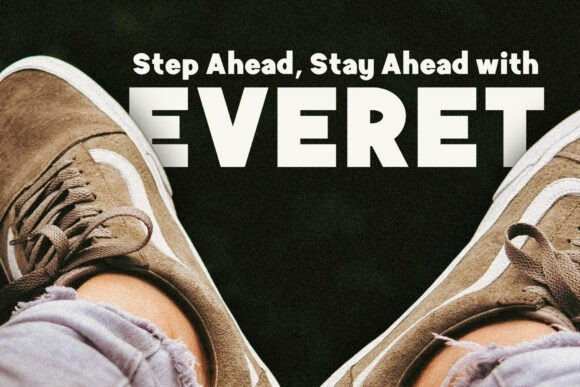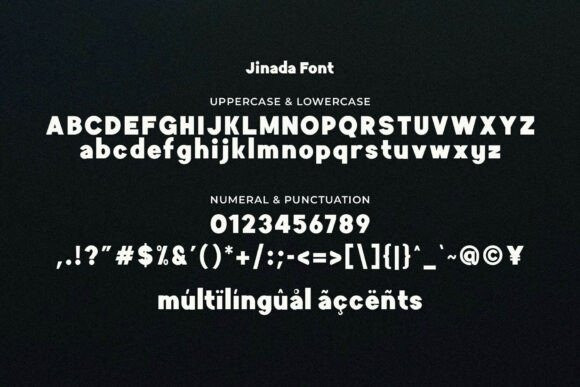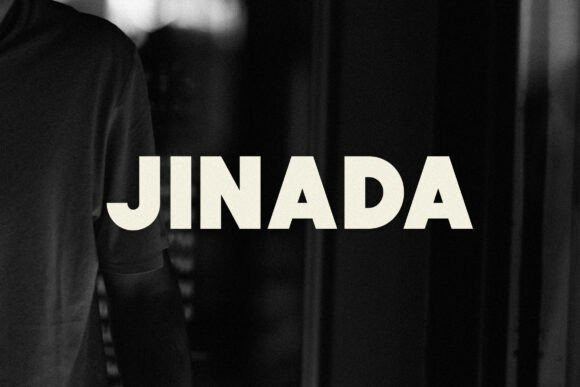
Jinada Font
Jinada Font is a bold, modern typeface designed to make a statement. With its strong and confident style, Jinada is perfect for creating impressive headlines, logos and branding materials. Jinada combines simplicity with strength, making it ideal for designs that require attention-grabbing typefaces. Its clean, sharp edges ensure excellent readability, whether used in print or digital. Add Jinada to your projects to convey strength, clarity and sophistication in a stylish way.